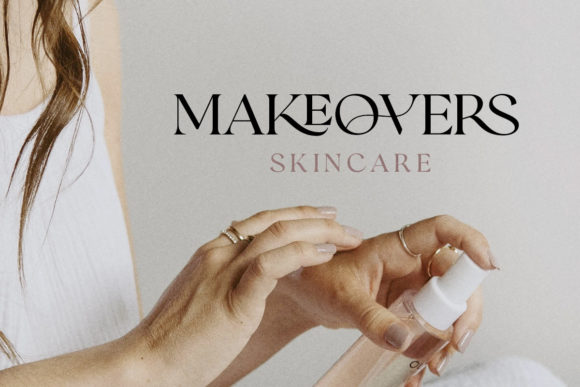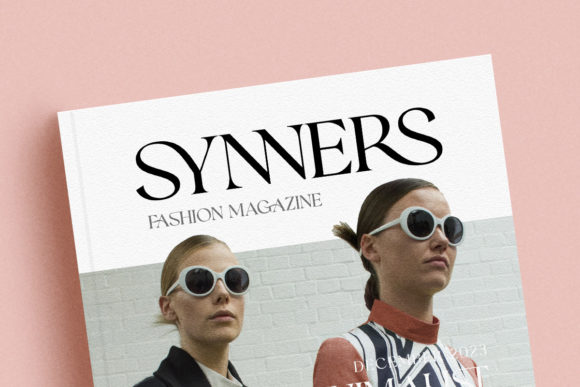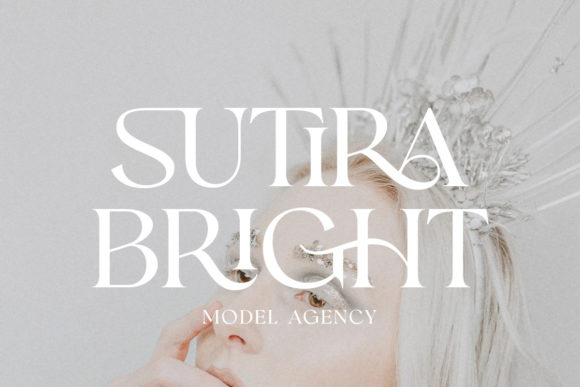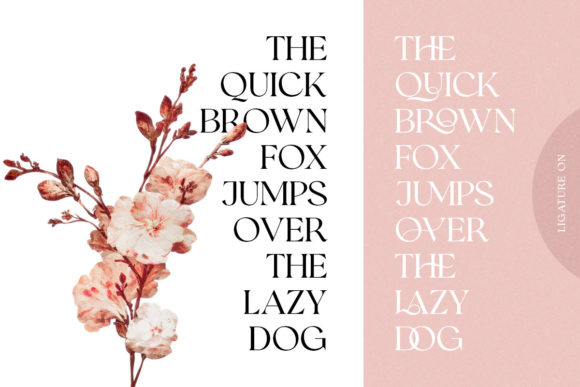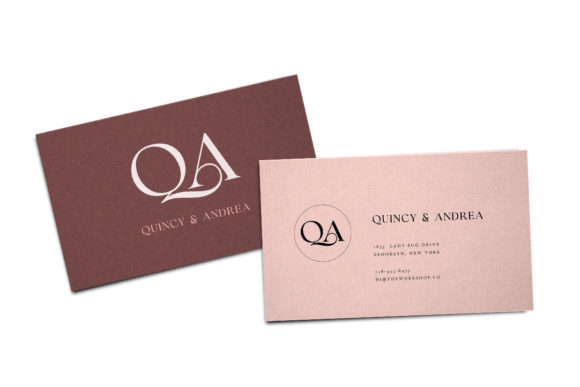
Romans Story Font
Romans Story is a thin lettered and delicate serif font. It looks stunning on wedding invitations, thank you cards, quotes, greeting cards, logos, business cards and every other design which needs a customized touch.